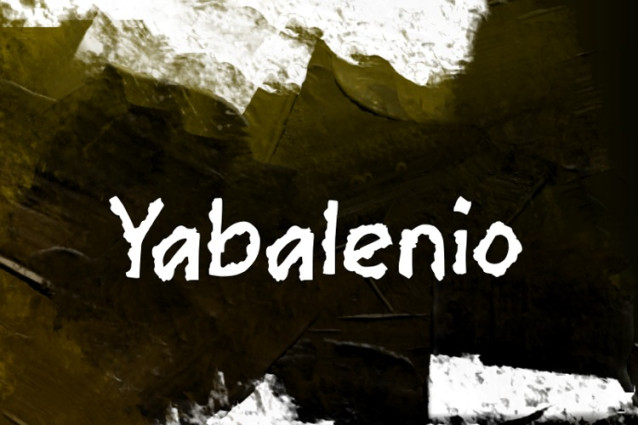
Yabalenio Font
Yabalenio Font, suitable for any design needs : logo, branding, modern advertising design, logos, poster quote, book / cover Title, editorial design, website / blog, card, t-shirts, and any hand-lettered needs.